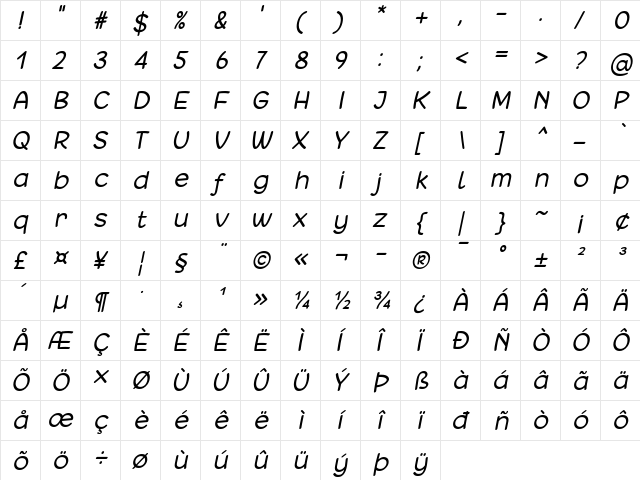
Matchinger Italic
| Foundry | 7NTypes |
| Designer | Situjuh Nazara |
Design Context for Matchinger Typeface
Matchinger is a composed and adaptable typeface that performs quietly and consistently across a wide range of design contexts. The slanted form adds forward momentum and visual energy.
Pro Tip: Use Matchinger for emphasis, pull quotes, and subheadings where its slanted energy can add rhythm to the layout.